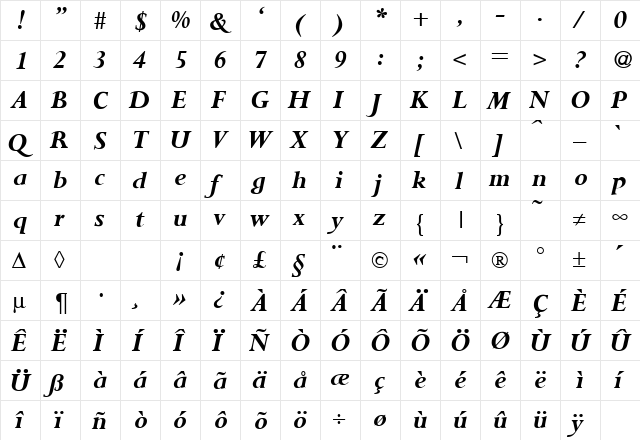
Perspective BoldItalic
Design Context for Perspective Typeface
Perspective is a composed and adaptable typeface that performs quietly and consistently across a wide range of design contexts. The slanted form adds forward momentum and visual energy. The heavy weight commands attention and anchors typographic hierarchies.
Pro Tip: Use Perspective for emphasis, pull quotes, and subheadings where its slanted energy can add rhythm to the layout.